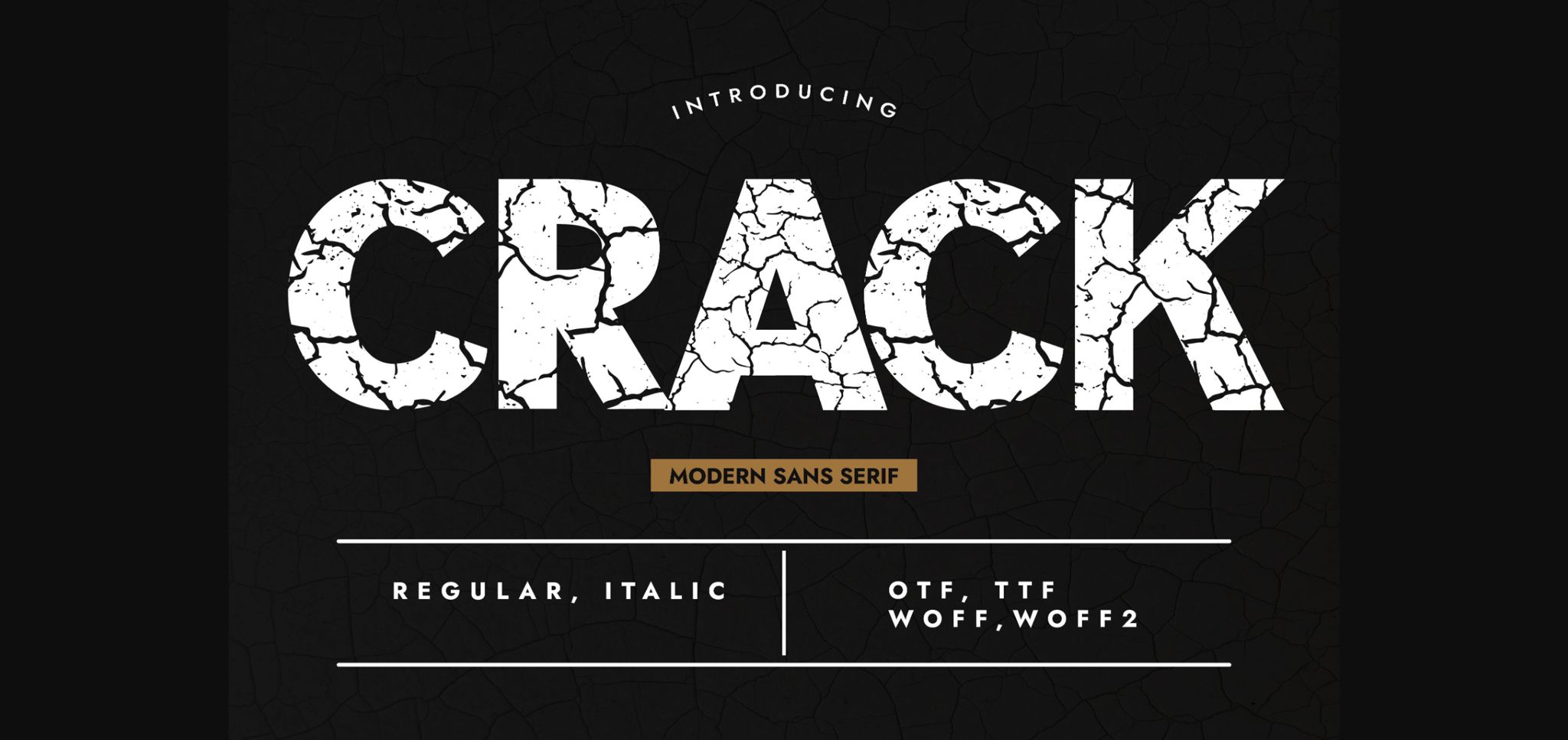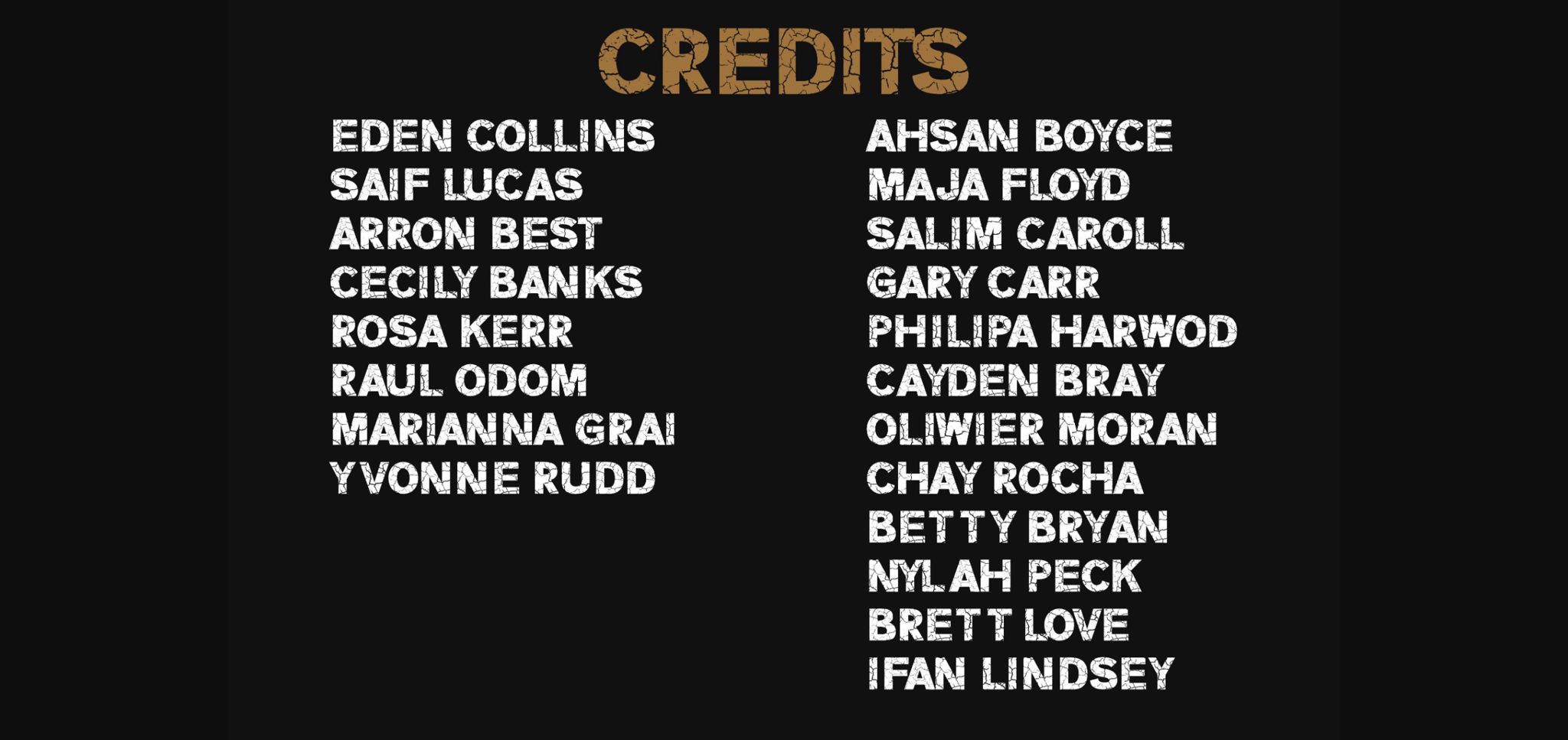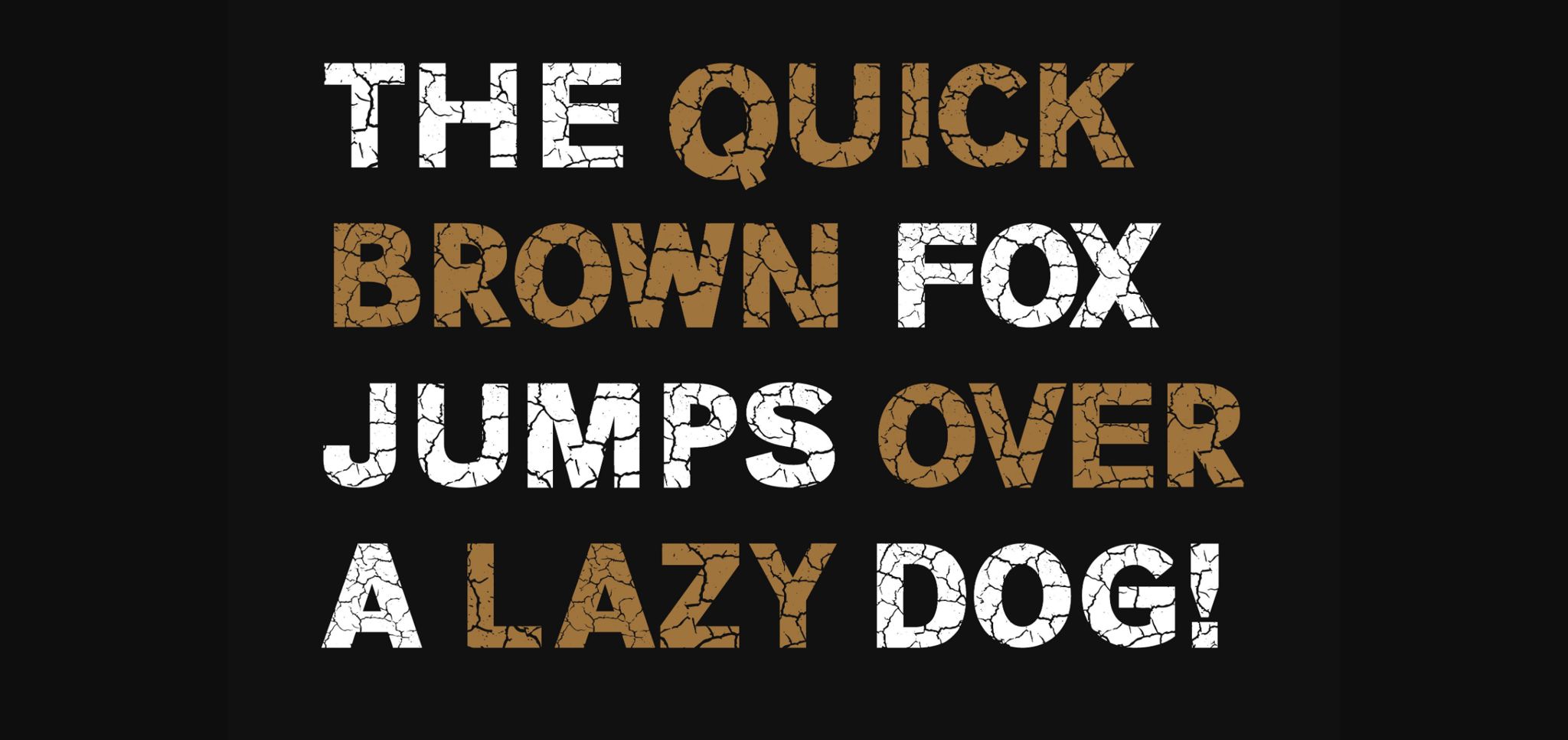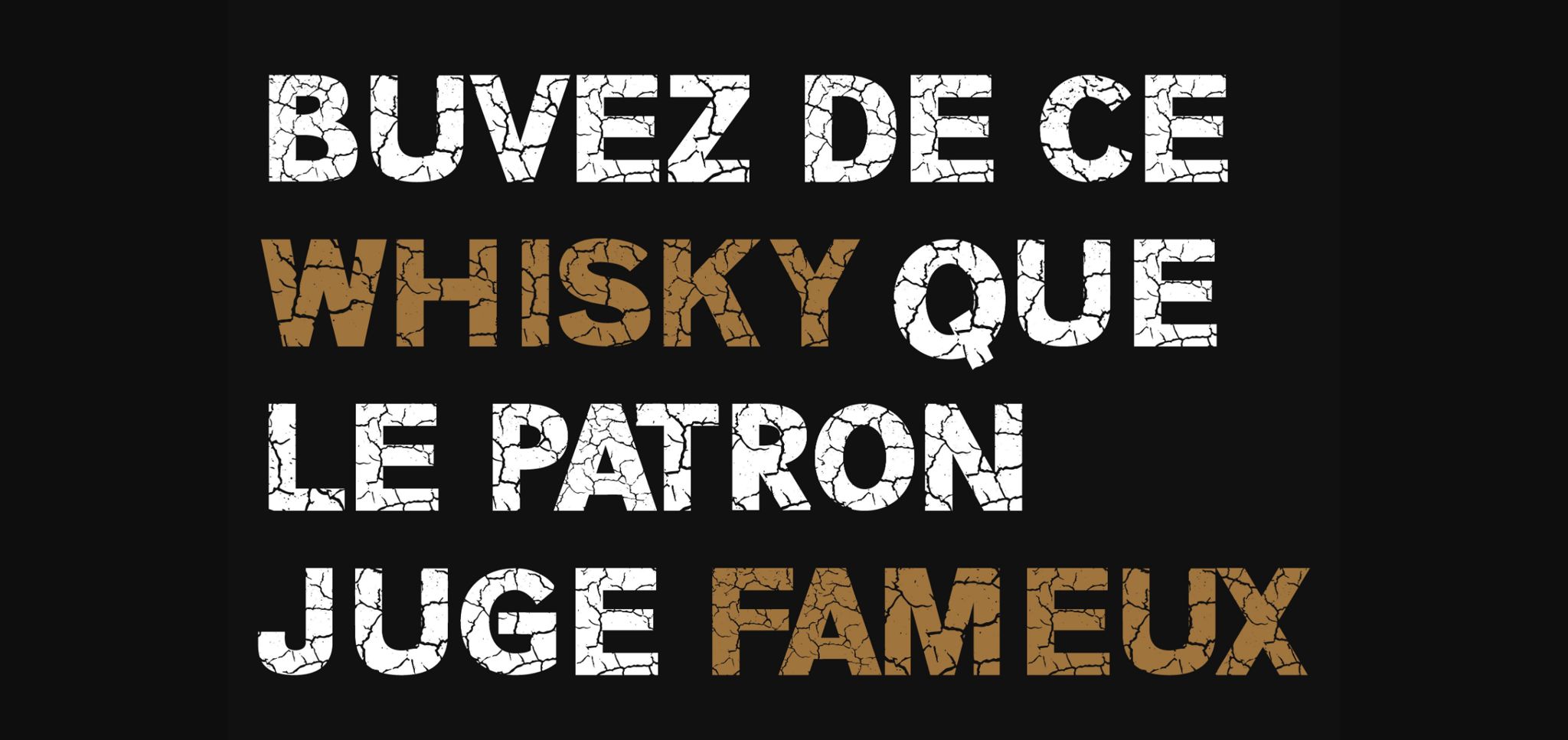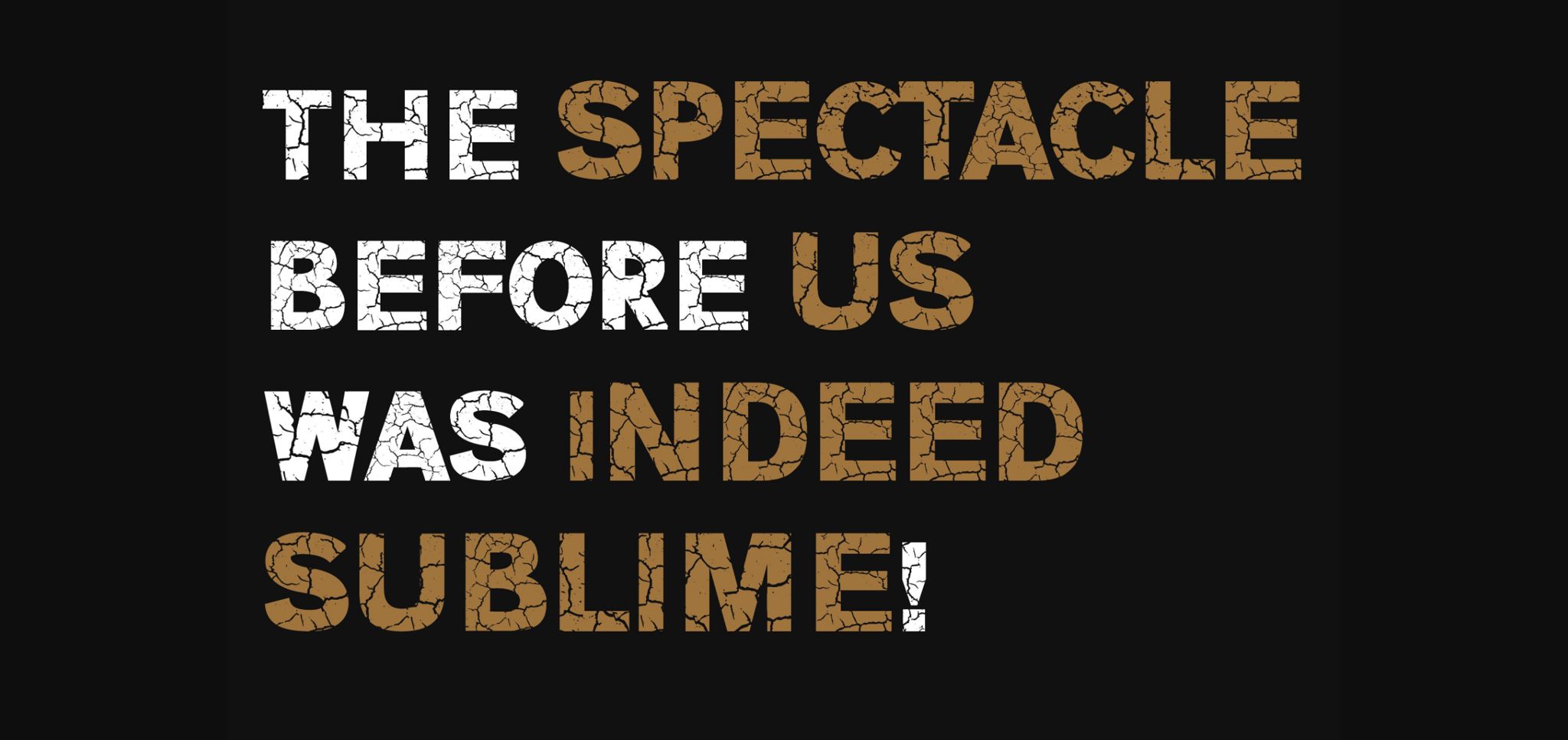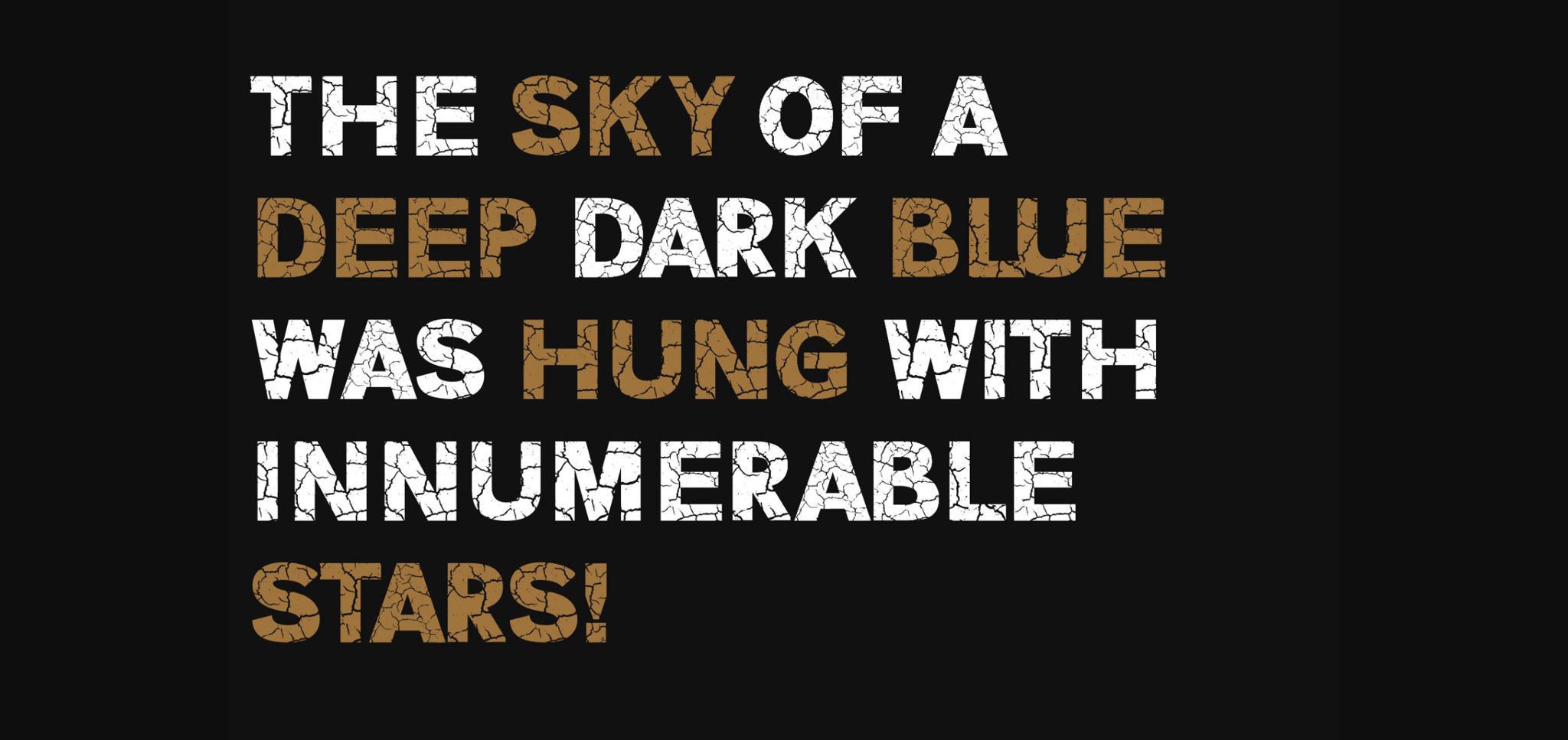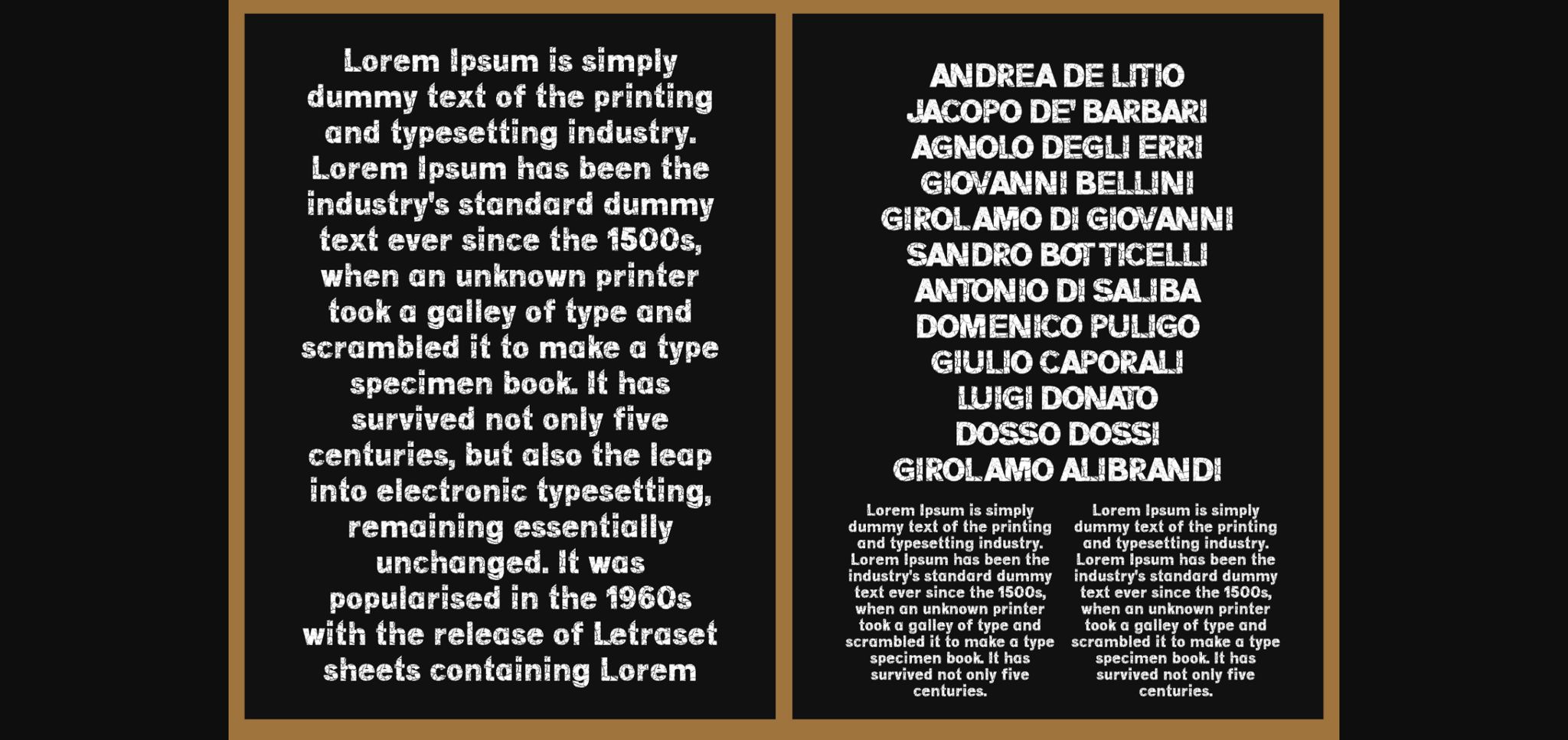
Crack Font
About Crack Font
Crack is a modern, revolutionary, and textured sans serif typeface. The grungy textures applied to its glyphs give it a huge power to grab the eye’s attention. for that reason it can be used in heading, large scales banner, posters, etc. it can suit many themes such as action movie titles, games titles, posters, horror themes, Halloween, or any design that require a unique grungy textured look.